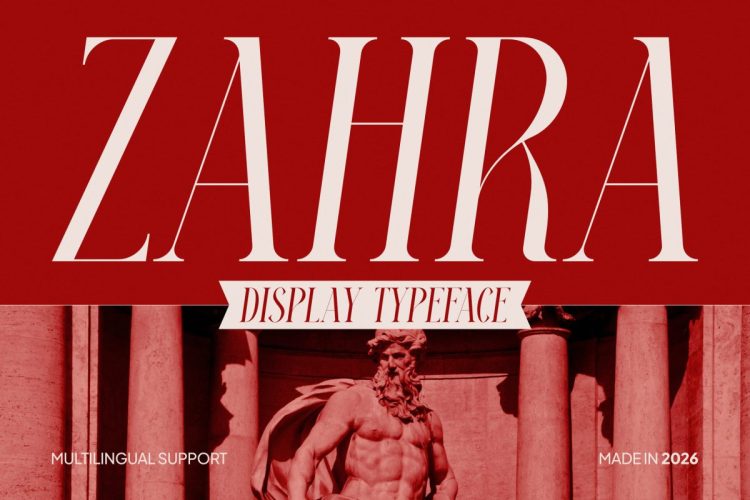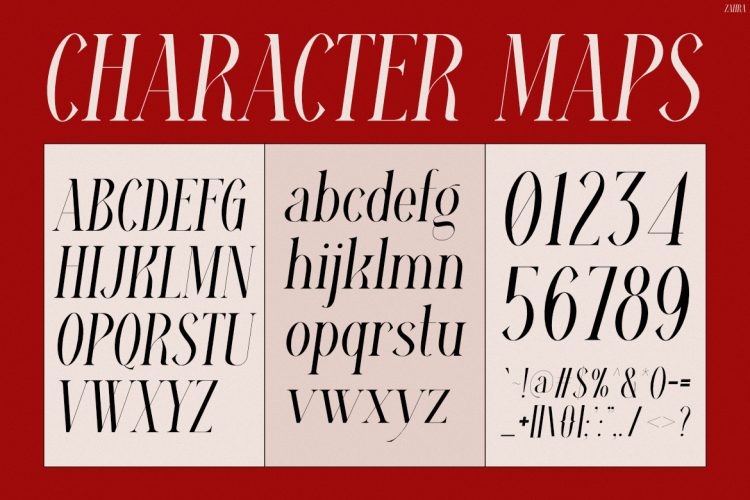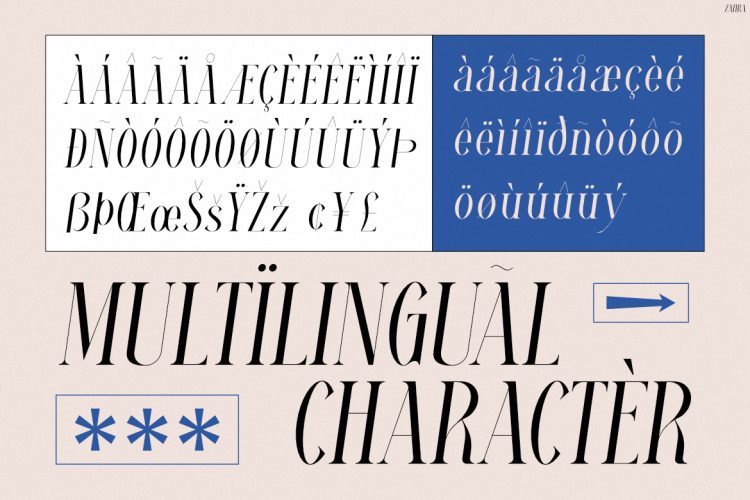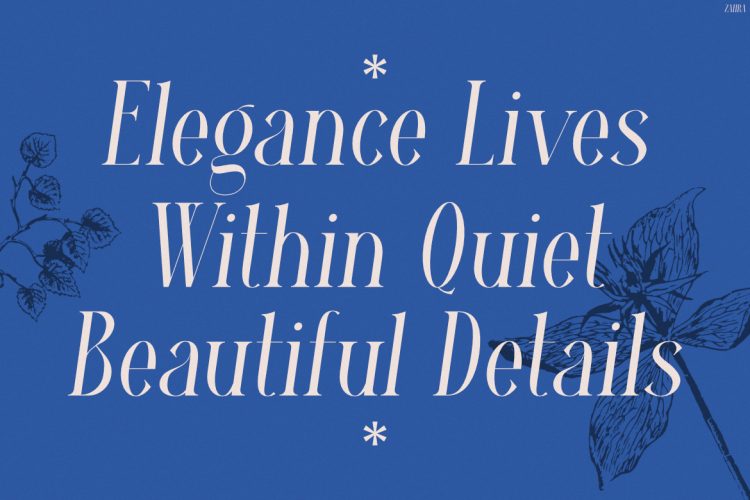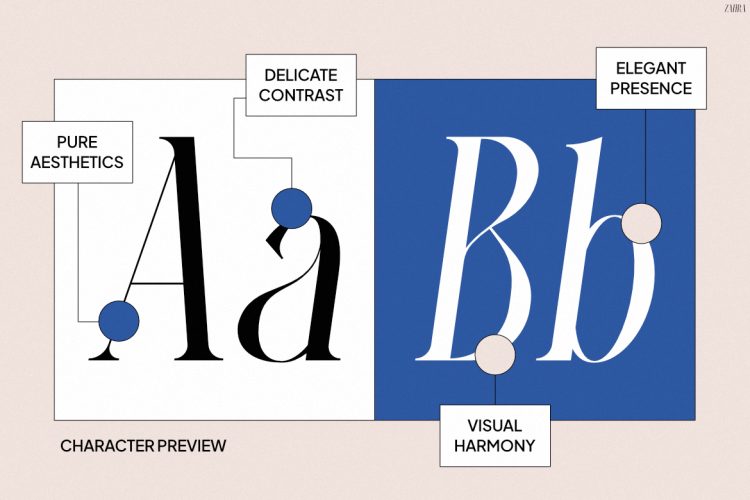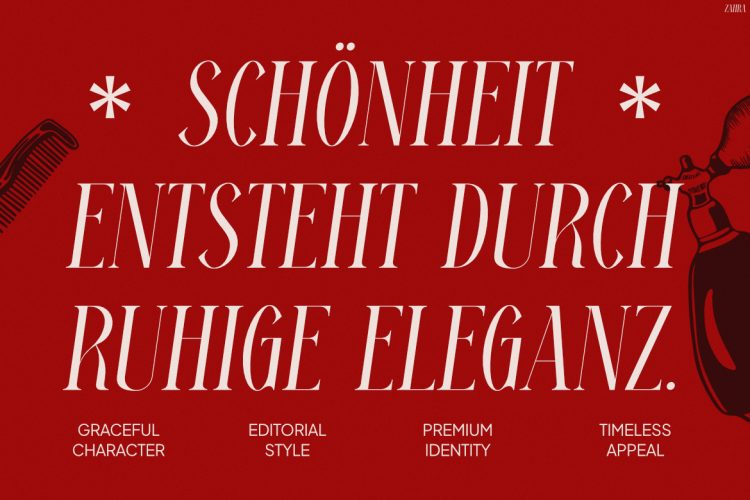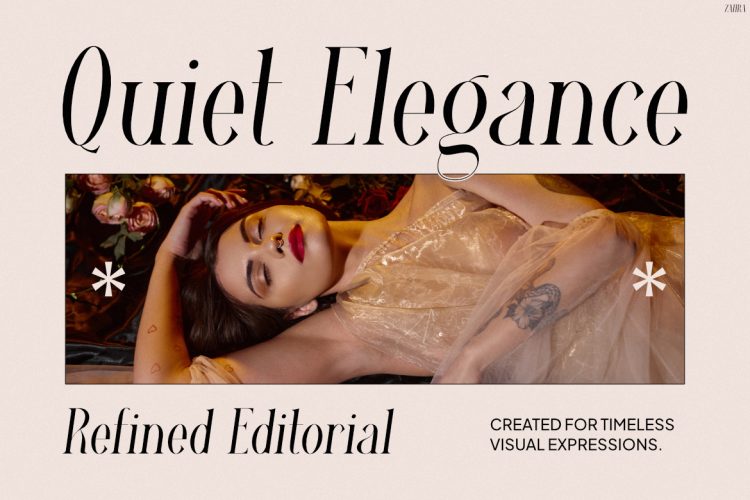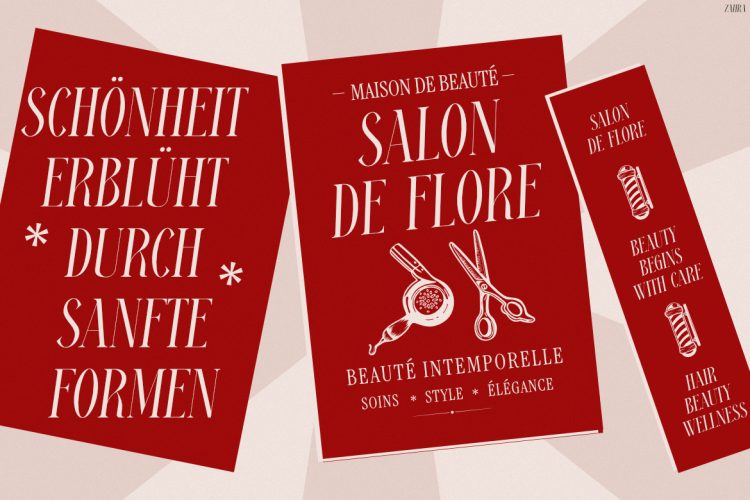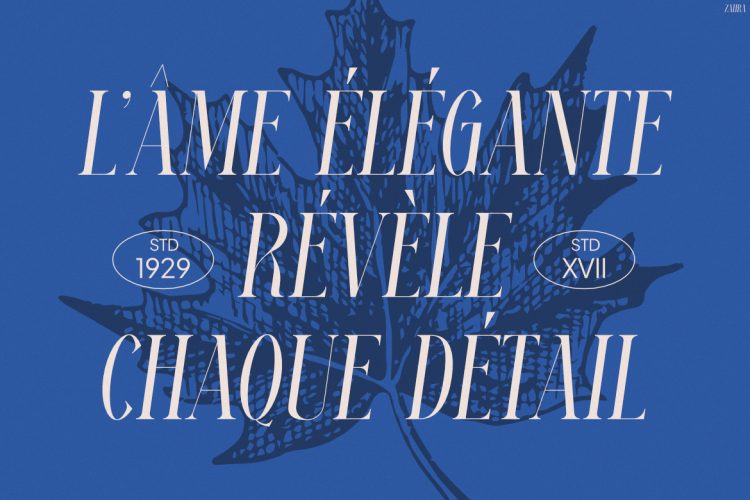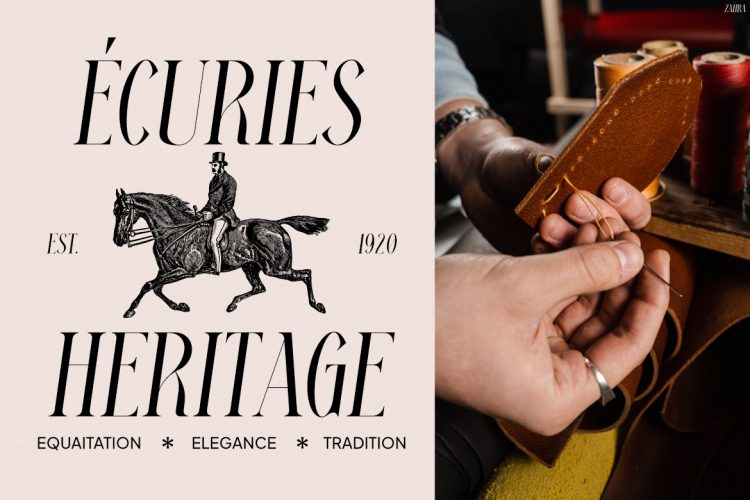
Zahra โ Luxury Editorial Serif for Fashion, Beauty & Instagram Branding
Instagram Font Zahra is a refined editorial serif designed to bring timeless sophistication to every creative project. With graceful high-contrast strokes, elegant curves, and beautifully balanced proportions, this typeface delivers a polished look that feels both modern and classic. Moreover, its delicate details create a luxurious visual rhythm while maintaining exceptional readability. As a result, every headline, logo, and editorial layout feels effortlessly stylish and memorable.
Why You’ll Love It
Additionally, Instagram Font Zahra is crafted for designers who appreciate elegance with versatility. Whether you’re building a fashion label, beauty brand, luxury packaging, wedding stationery, or premium social media content, this font elevates every composition with confidence. Furthermore, its sophisticated letterforms pair beautifully with minimalist layouts, fine photography, and editorial designs. Besides that, Multilingual Support for 67 languages helps you create consistent branding for audiences across the globe. Therefore, your work feels refined, professional, and internationally ready.
Instagram Font Zahra Perfect For
Fashion branding, beauty products, cosmetics, skincare packaging, luxury logos, wedding invitations, editorial magazines, boutique branding, perfume labels, Instagram posts, social media templates, hotels, cafรฉs, premium packaging, and lifestyle businesses.
Make Elegance Your Signature